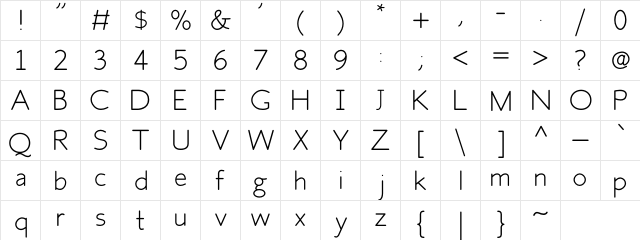
Fh_Space Regular
| Foundry | Dan Meyer (Fictionalhead) |
| Designer | Dan Meyer (Fictionalhead) |
Design Context for Fh_Space Typeface
Fh_Space takes a measured approach to typography — its balanced proportions and neutral character make it a reliable workhorse for both digital and print work.